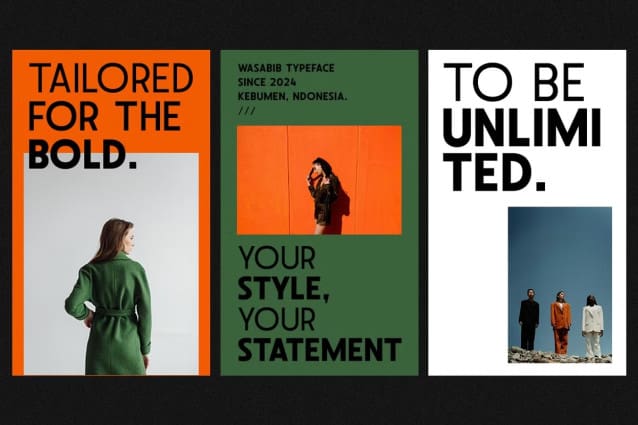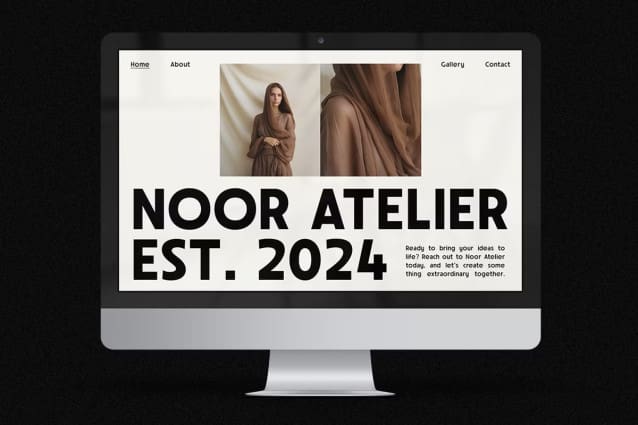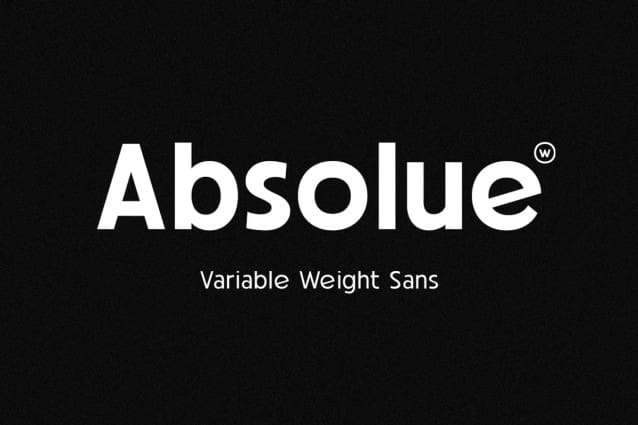
Absolue Font Family
Absolue Font Family is a versatile sans serif typeface that comes in a variable font format. Its adaptable nature makes it suitable for a wide range of design applications such as branding, logo design, headlines, website content, book layouts, etc. With its clean and modern aesthetic, Absolue brings a sense of sophistication and clarity to any design project, making it a versatile choice for typographic needs across various media.